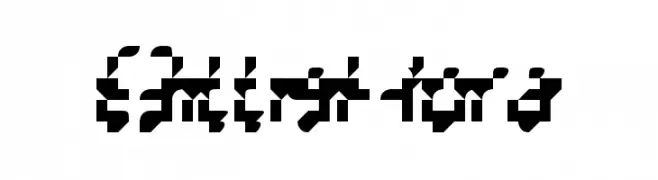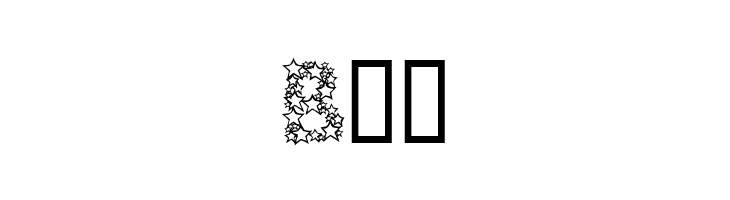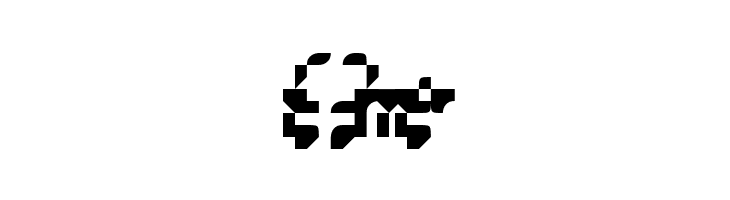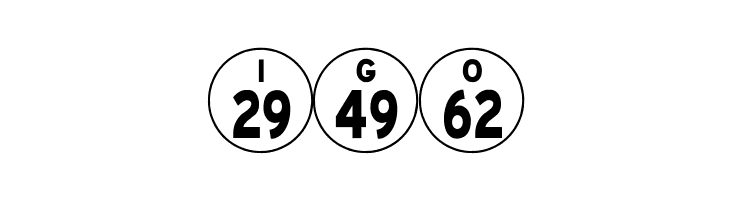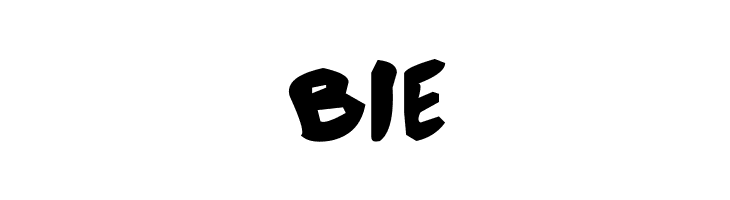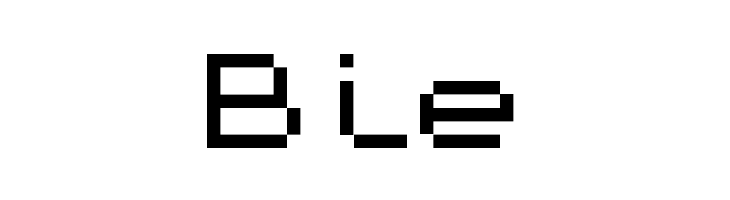
A bold, fragmented, and pixelated decorative font with high contrast.
A bold, sans-serif font with characters enclosed in circles, ideal for high visibility.
A decorative font made entirely of star shapes, perfect for festive and playful designs.
A pixelated, retro-style font with a digital, blocky appearance.
A bold, hand-drawn font with an edgy, irregular style.